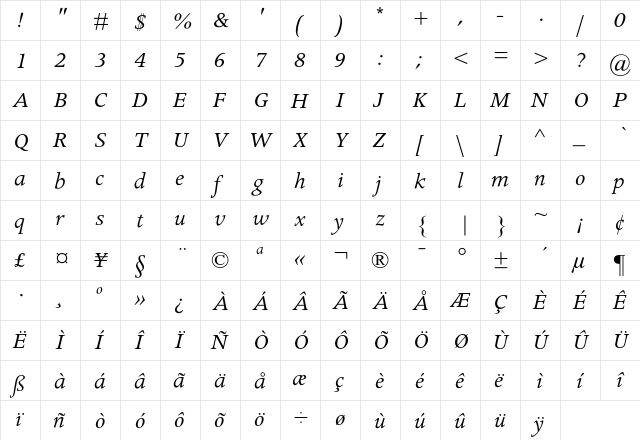
Apollo-Italic Regular
Design Context for Apollo-Italic Typeface
Apollo-Italic is a composed and adaptable typeface that performs quietly and consistently across a wide range of design contexts. The dynamic lean of this cut emphasises speed and emphasis in any layout.
Pro Tip: Try Apollo-Italic for annotation and caption copy alongside an upright companion — the contrast in angle creates a dynamic but ordered typographic system.